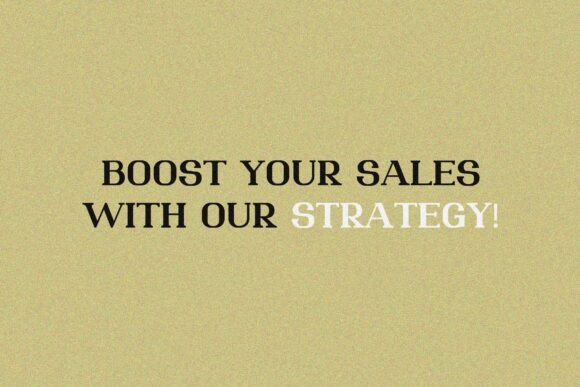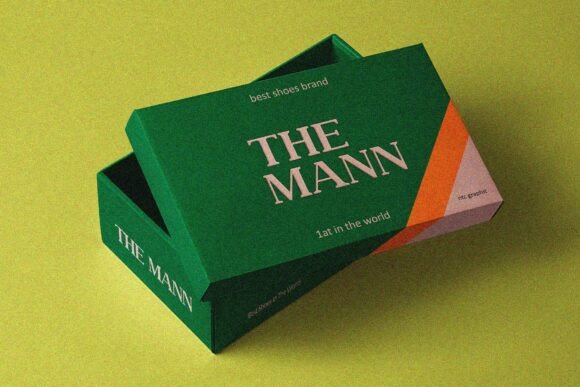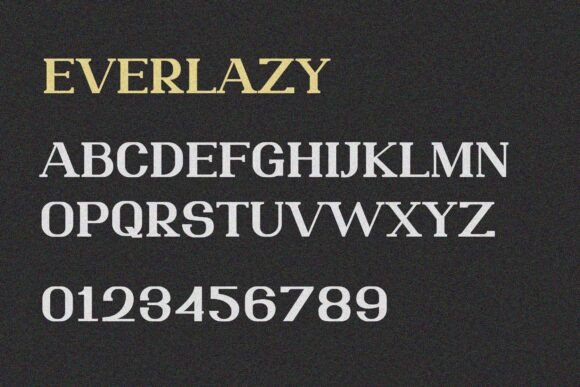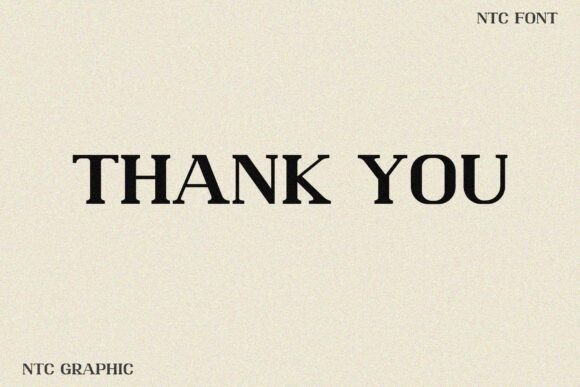
Introducing EVERLAZY: The Ultimate Serif Font for Elegant Designs
In the world of typography, fonts play a crucial role in defining the aesthetic and tone of a design project. For designers and crafters seeking a sophisticated and modern look, EVERLAZY emerges as an exceptional choice. This serif font, crafted with a clean and minimalist approach, brings a touch of elegance and professionalism to various design applications. Let’s dive into the features and benefits of EVERLAZY and explore how it can elevate your design projects.
Aesthetic Appeal of EVERLAZY
EVERLAZY boasts a uniquely crafted set of letterforms that exude a distinctive yet versatile charm. Its serif design, characterized by subtle lines and curves, creates a refined and modern appeal. The clean and minimalist aesthetic ensures that the font remains legible and impactful across various mediums, from print to digital platforms. Whether you’re working on branding, editorial layouts, packaging, or digital designs, EVERLAZY’s aesthetic versatility makes it an ideal choice.
Key Features of EVERLAZY
- Sophisticated Serif Design: EVERLAZY’s serif font is designed to add a touch of sophistication to your designs. Its classic yet modern look makes it perfect for projects requiring an elegant appeal.
- Clean and Minimalist Aesthetic: The font’s clean lines and minimalist approach ensure that your designs look refined and uncluttered, enhancing readability and visual appeal.
- Versatile and Distinctive: EVERLAZY’s unique letterforms provide a distinctive look that can be adapted to various design projects, from luxury branding to editorial content.
- High Legibility: The font’s design prioritizes legibility, making it suitable for both headings and body text in digital and print materials.
Applications of EVERLAZY
EVERLAZY’s versatility extends to a wide range of design applications. Here are some of the key areas where this font can make a significant impact:
- Branding: Use EVERLAZY to create a luxurious and professional brand identity. Its elegant design helps in establishing a sophisticated image for your business.
- Editorial Layouts: Enhance your magazines, newspapers, and blogs with EVERLAZY’s refined and modern look. Its readability and aesthetic appeal make it perfect for editorial content.
- Packaging: Add a touch of elegance to your product packaging with EVERLAZY. Its distinctive design ensures that your products stand out on the shelves.
- Digital Designs: For websites, mobile apps, and digital marketing materials, EVERLAZY provides a professional and modern look that engages users.
Why Choose EVERLAZY?
In a market flooded with numerous font options, EVERLAZY stands out for several reasons:
- Unique Design: EVERLAZY offers a fresh take on serif typography, providing a unique look that can differentiate your designs.
- Professional Appeal: Its sophisticated design ensures that your projects look professional and polished.
- Versatility: EVERLAZY can be used across various design projects, making it a valuable addition to your font library.
- Legibility: The font’s high legibility makes it suitable for a wide range of applications, from headings to body text.
EVERLAZY is more than just a font; it’s a design statement. Its sophisticated serif design, clean and minimalist aesthetic, and versatile nature make it an excellent choice for designers and crafters looking to add a touch of elegance and professionalism to their projects. Whether you’re working on branding, editorial layouts, packaging, or digital designs, EVERLAZY ensures a refined and modern appeal that can elevate your designs to the next level. Explore the possibilities with EVERLAZY and discover how this exceptional font can transform your design projects.